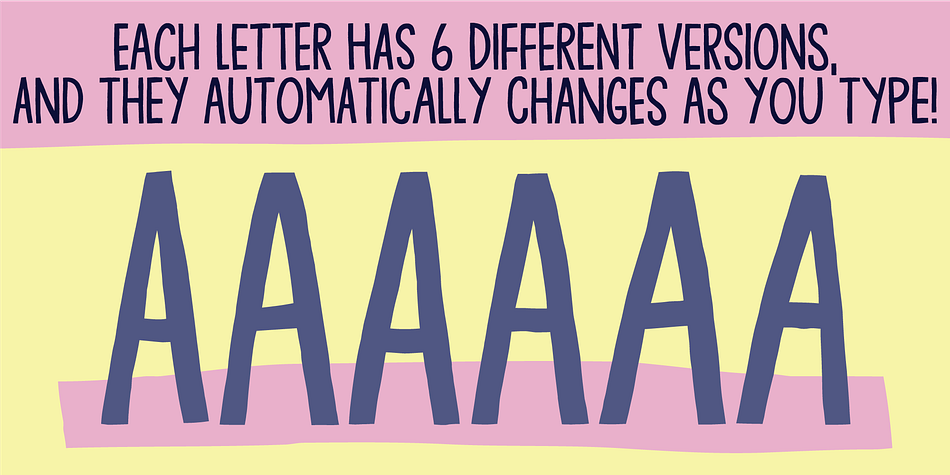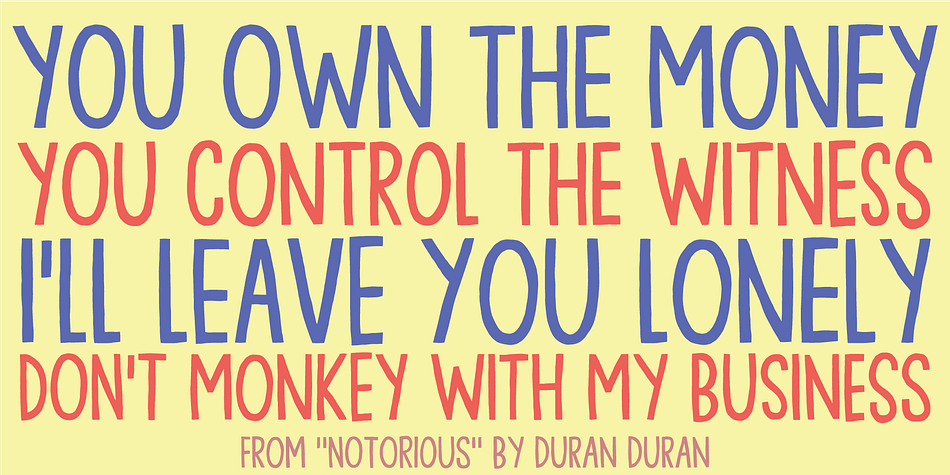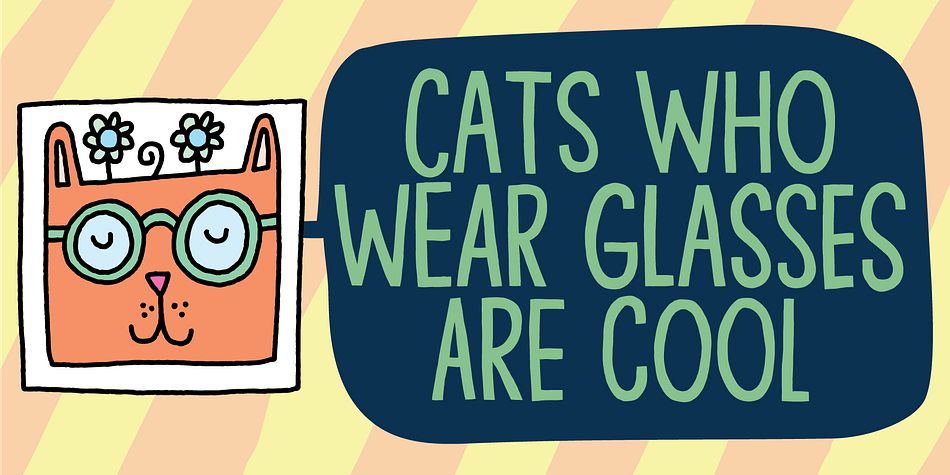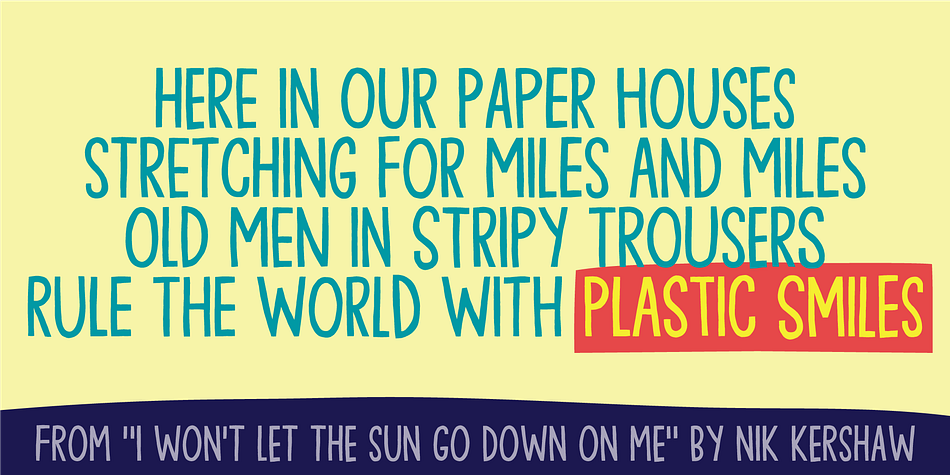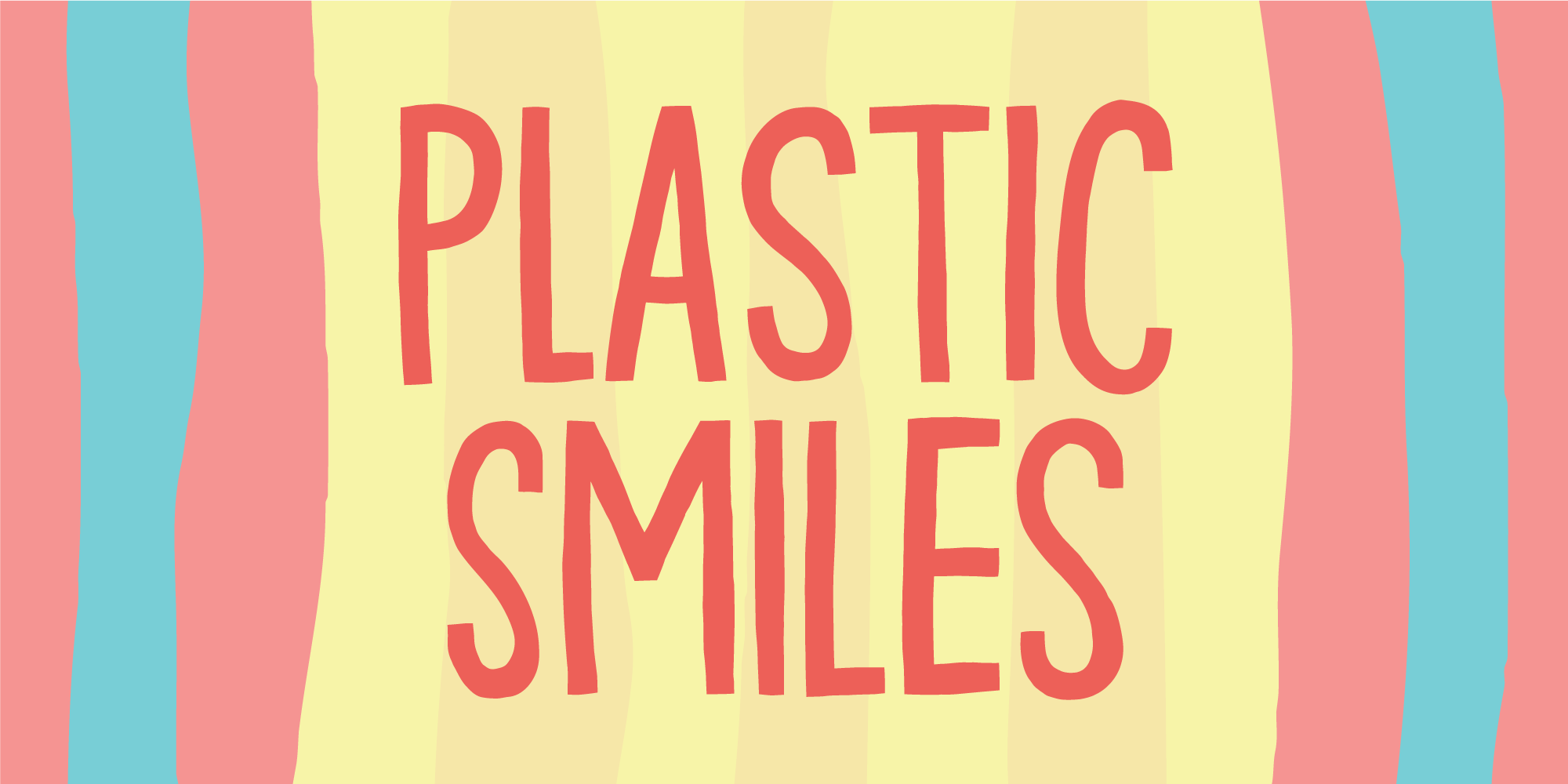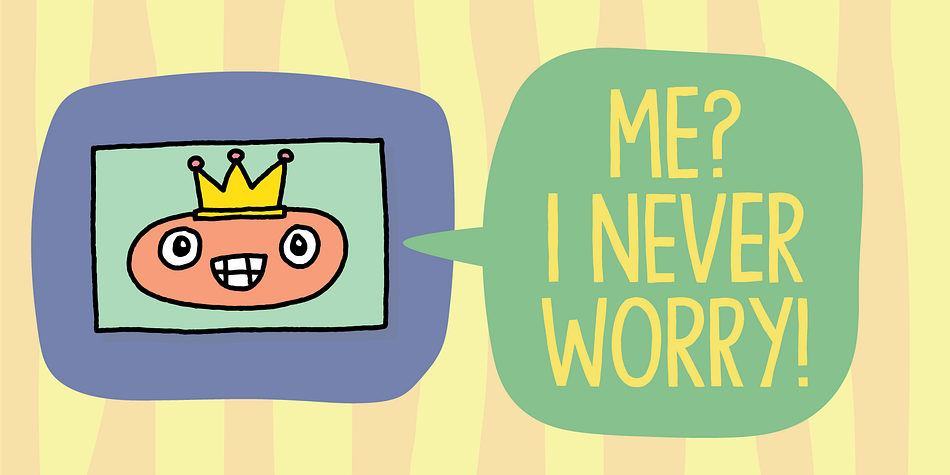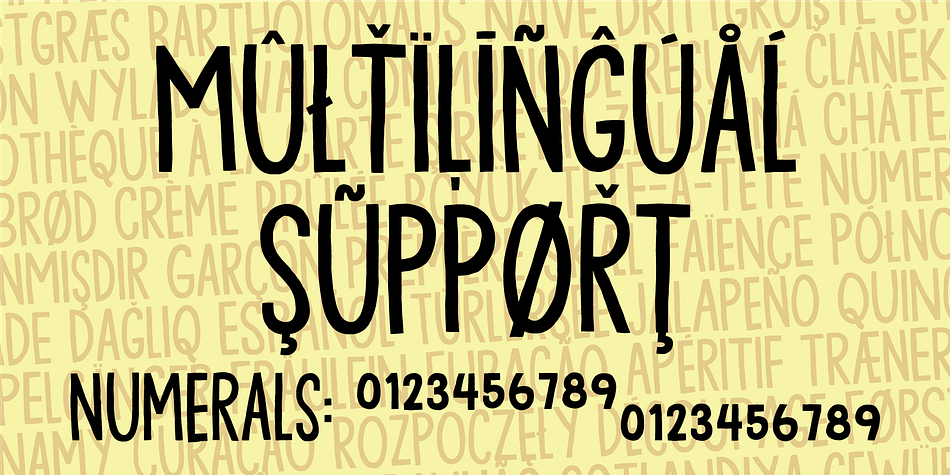
Plastic Smiles
Designed by Jakob Fischer, Plastic Smiles is a display and hand drawn font family. This typeface has two styles and was published by Pizzadude.dk.
Now here’s a nice headline for you! My Plastic Smiles has got elegance, legibility and a nice organic handmade feel. Actually, you don’t have to use it for a headline only, massive amounts of text works very well. Best viewed at large sizes, but still super legible even at real small sizes as well.
I have added 6 slightly different versions of each letter, and these cycle as you type!